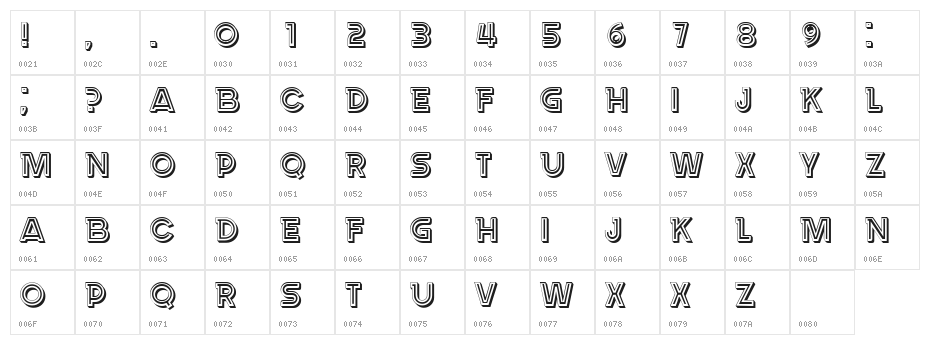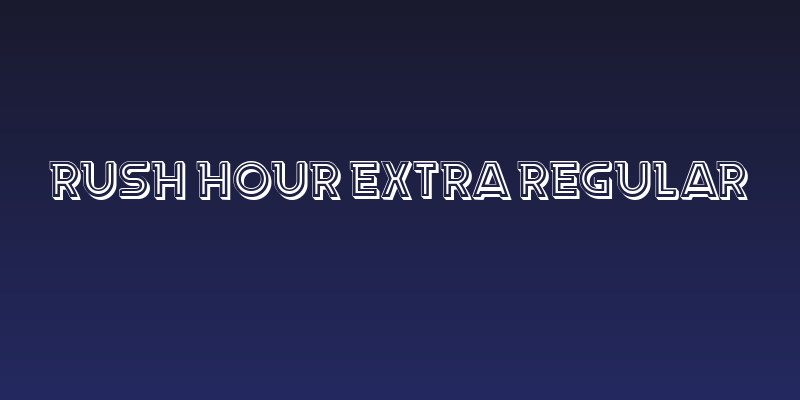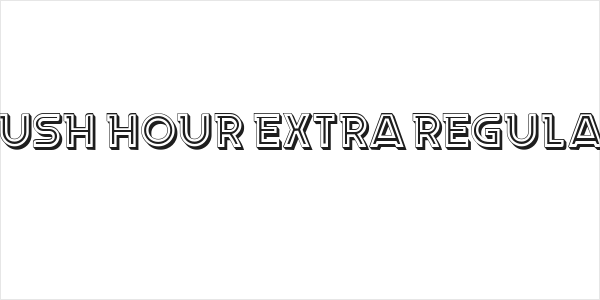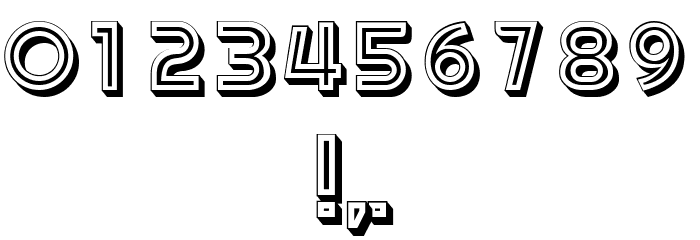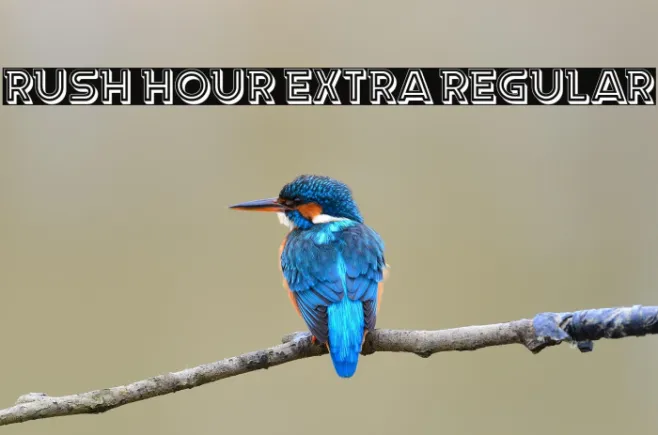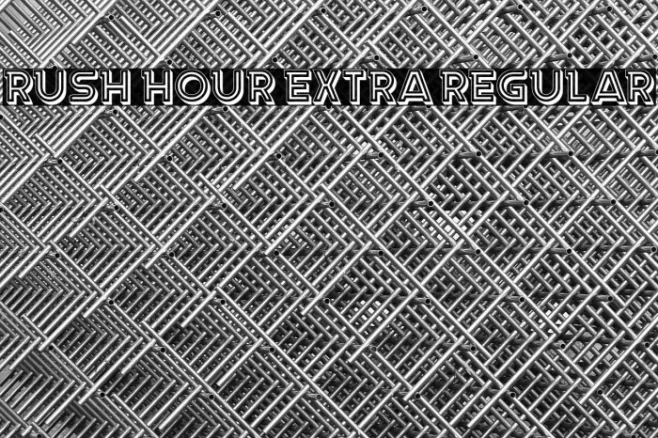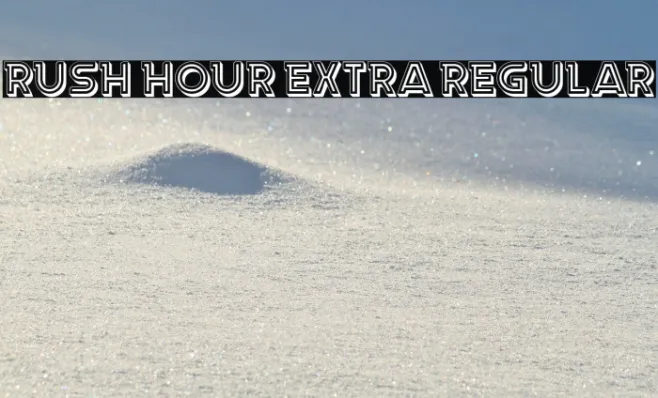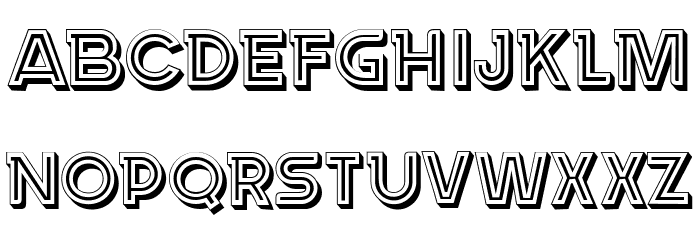
Rush Hour Extra Regular Font
Rush Hour Extra Regular Description
This font features a bold, three-dimensional appearance with a shadow effect that gives it a striking and dynamic look. The uppercase letters are designed with clean, geometric lines, while the shadow adds depth and a sense of movement. The numbers and special characters follow the same style, ensuring consistency across all elements. The font's boldness and unique style make it ideal for attention-grabbing designs. Its structured form and shadow detail create a modern yet slightly retro aesthetic, perfect for projects that require a standout typographic element.
| Proposed Projects | Ideal for posters, headlines, logos, and any design needing a bold, eye-catching typeface. |